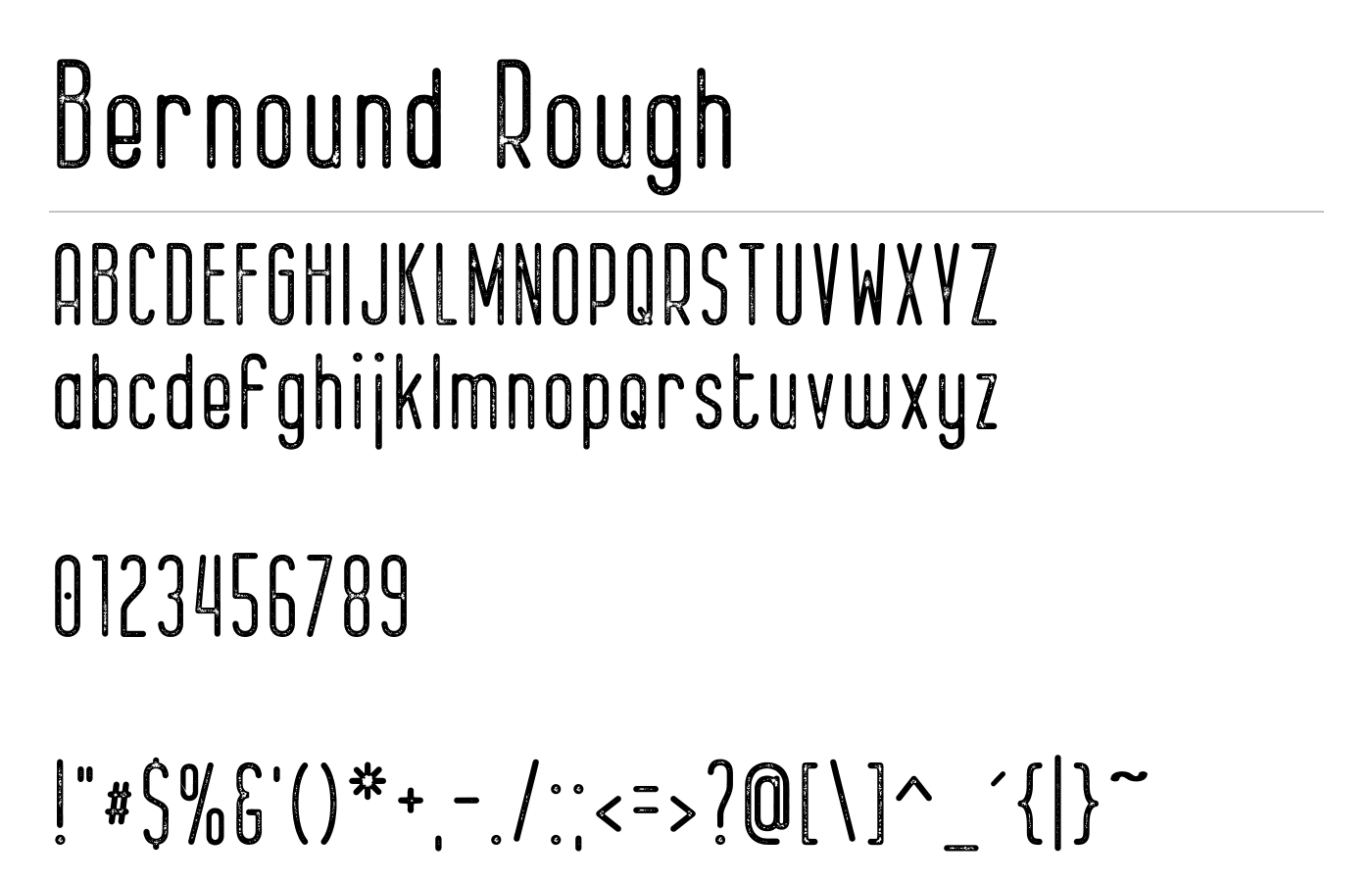
Bernound Rough is a narrow, tall sans serif font featuring a distressed, textured style that gives it a vintage, handcrafted feel. Its slim letterforms with consistent stroke weight and rounded edges create a friendly yet edgy appearance, making it perfect for retro-inspired designs, posters, logos, and branding that seek a unique, authentic look. This font works best in headlines and display uses where its rough character can stand out and add personality.
Bernound Font
About Bernound Font